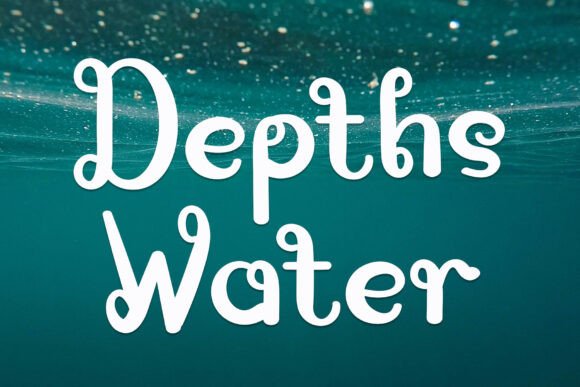
Introducing Depths Water Font: Elevate Your Designs with a Unique and Elegant Touch
In the world of typography, a font can make or break a design. When it comes to creating visually stunning materials, the right font can add a touch of elegance, sophistication, and personality. If you’re looking for a font that can elevate your designs and add a handwritten touch, look no further than Depths Water Font. In this article, we’ll dive into the features and benefits of Depths Water Font, and explore how it can be used to create breathtaking designs.
What is Depths Water Font?
Depths Water Font is a unique and elegant font designed to add a touch of sophistication to any design. With its natural, hand-made touch, this font features a varied baseline that creates a sense of movement and fluidity. Whether you’re designing wedding invitations, greeting cards, billboards, logos, business cards, or any other visual material, Depths Water Font is the perfect choice.
Design Applications for Depths Water Font
Depths Water Font is a versatile font that can be used in a wide range of design applications. Here are some ideas to get you started:
- Wedding Invitations: Add a touch of elegance and romance to your wedding invitations with Depths Water Font. The font’s natural, hand-made touch creates a sense of warmth and sophistication.
- Greeting Cards: Whether you’re designing birthday cards, holiday cards, or thank-you cards, Depths Water Font is the perfect choice. The font’s varied baseline adds a touch of personality and whimsy.
- Billboards: Make a statement with Depths Water Font on your billboard designs. The font’s elegant and sophisticated feel is sure to grab attention and leave a lasting impression.
- Logos: Create a unique and memorable logo with Depths Water Font. The font’s natural, hand-made touch adds a touch of personality and approachability.
- Business Cards: Elevate your business cards with Depths Water Font. The font’s elegant and sophisticated feel is sure to make a great impression on potential clients and customers.
Key Features of Depths Water Font
Depths Water Font comes with a range of features that make it easy to use and customize. Here are some of the key features:
- PUA Encoded: Depths Water Font is PUA encoded, which means you can access all glyphs and swashes with ease. This makes it easy to customize the font to suit your design needs.
- Varied Baseline: The font’s varied baseline creates a natural, hand-made touch that adds a sense of movement and fluidity to your designs.
- Elegant and Sophisticated: Depths Water Font has an elegant and sophisticated feel that’s perfect for designs that require a touch of luxury and refinement.
Tips and Tricks for Using Depths Water Font
Here are some tips and tricks for getting the most out of Depths Water Font:
- Experiment with Font Sizes: Depths Water Font looks great in a range of font sizes, from large and bold to small and delicate. Experiment with different font sizes to find the one that works best for your design.
- Play with Color: The font’s elegant and sophisticated feel works well with a range of colors, from bold and bright to soft and pastel. Experiment with different colors to find the one that works best for your design.
- Add Texture and Patterns: Depths Water Font works well with texture and patterns, adding a touch of depth and interest to your designs.
Why Choose Depths Water Font?
With so many fonts to choose from, why should you choose Depths Water Font? Here are just a few reasons:
- Unique and Elegant: Depths Water Font is a unique and elegant font that adds a touch of sophistication to any design.
- Versatile: The font is versatile and can be used in a wide range of design applications, from wedding invitations to billboards.
- Easy to Use: Depths Water Font is easy to use and customize, with a range of features that make it easy to get the look you want.
In conclusion, Depths Water Font is a unique and elegant font that’s perfect for designers who want to add a touch of sophistication to their designs. With its natural, hand-made touch and varied baseline, this font is sure to elevate your designs and make them stand out. Whether you’re designing wedding invitations, greeting cards, billboards, logos, business cards, or any other visual material, Depths Water Font is the perfect choice.